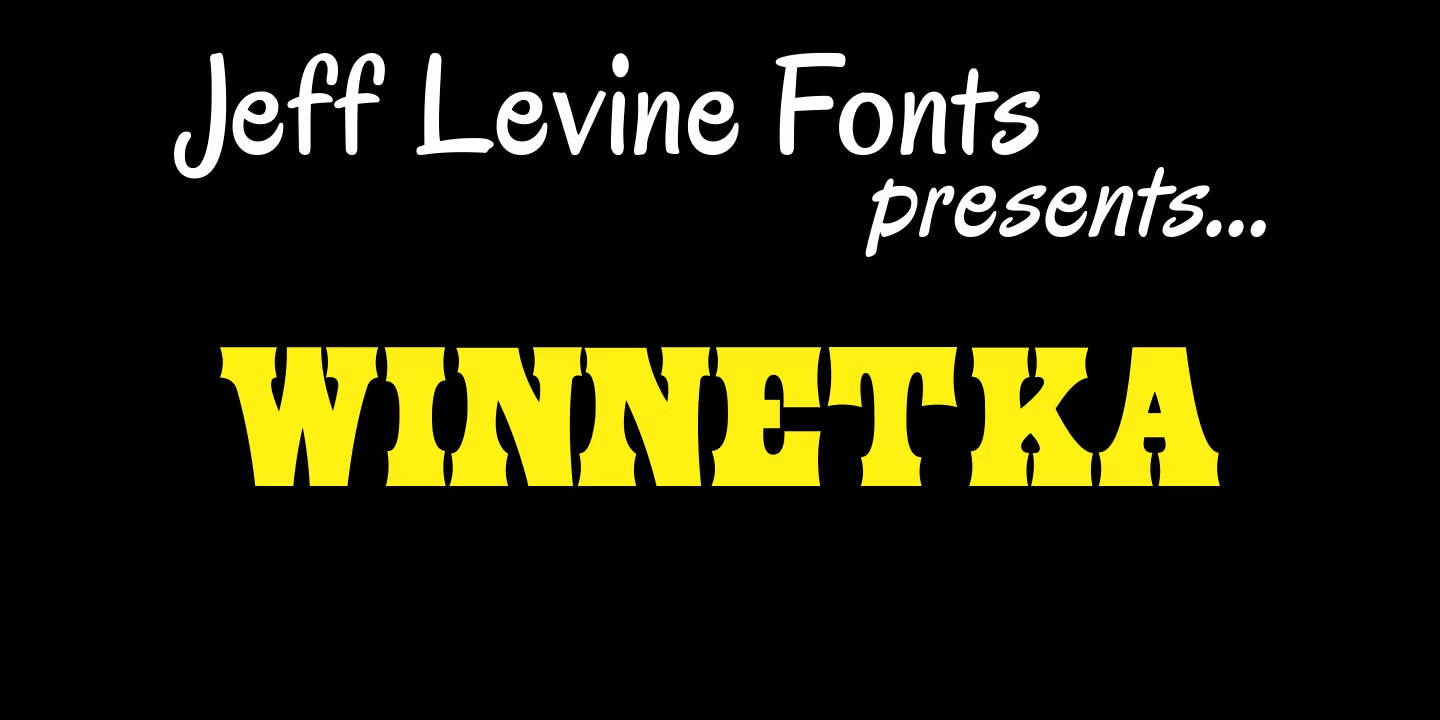
Winnetka
Winnetka JNL was inspired by Cooley Antique Tuscan Condensed - a printer's wood type manufactured in 1859 by J.G. Cooley. Given an additional hand-made treatment, the lettering resembled characters made from cut paper.